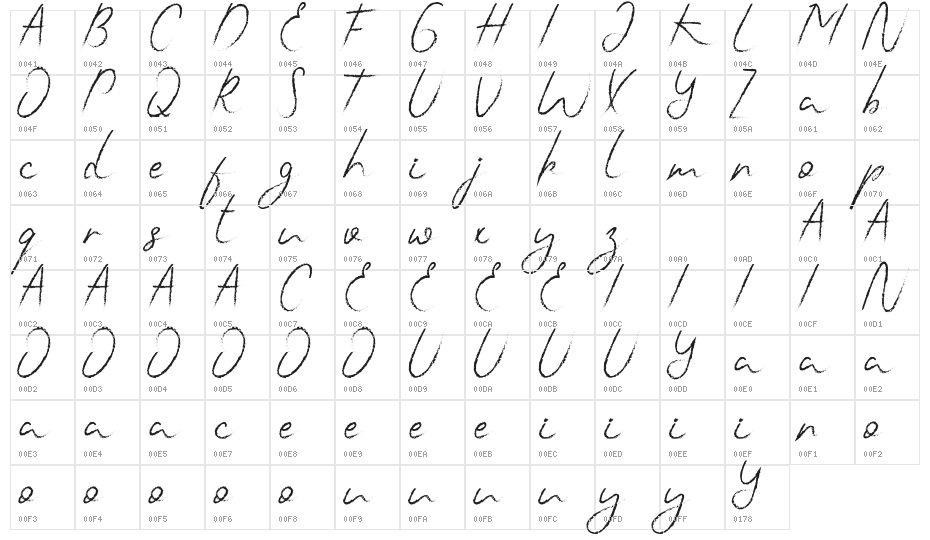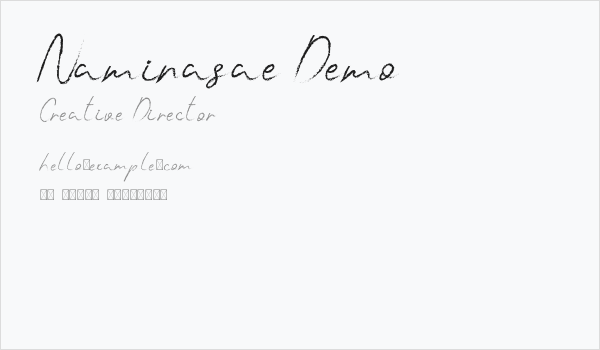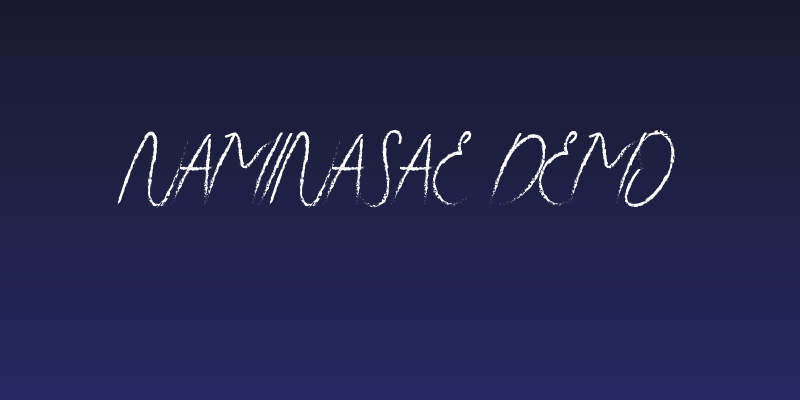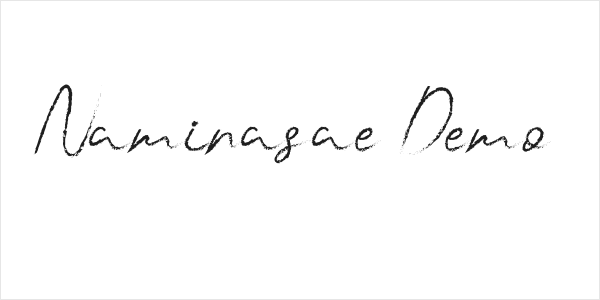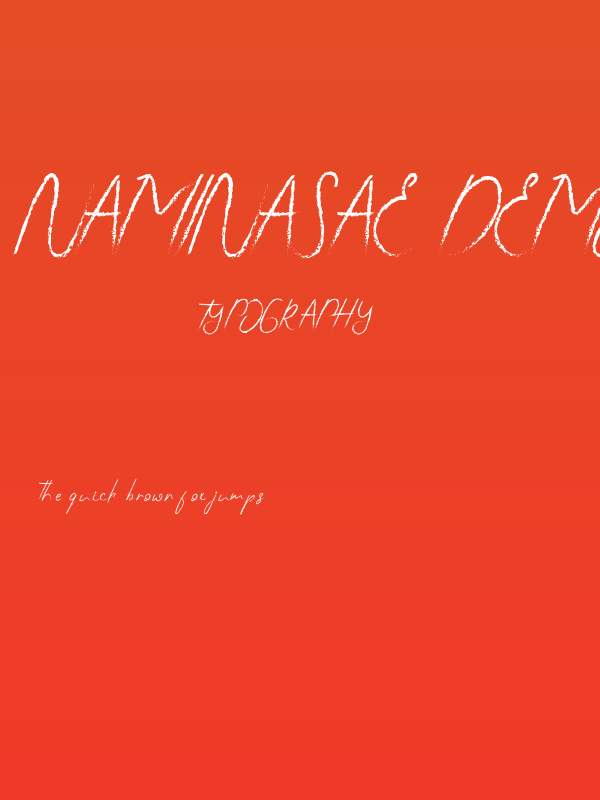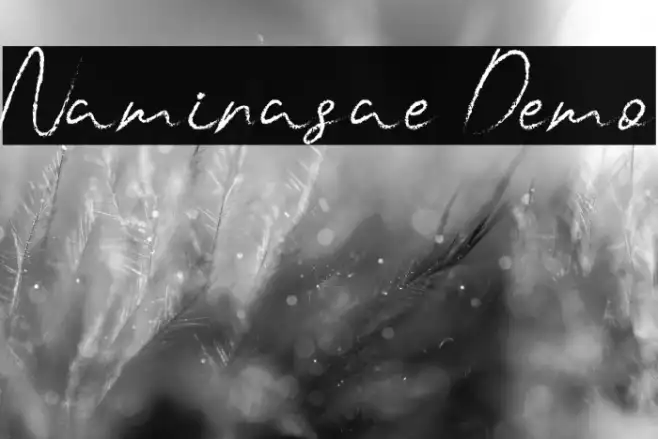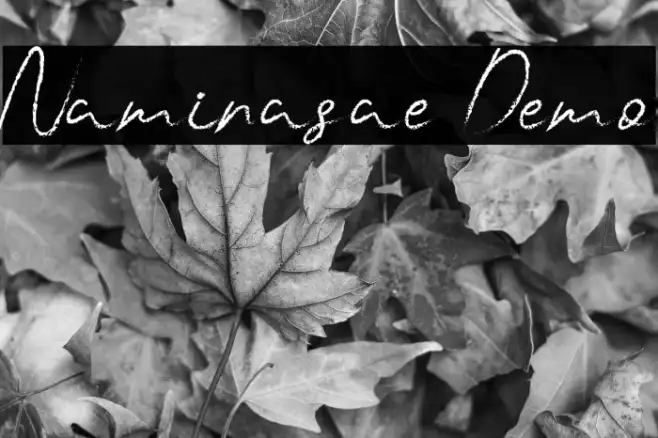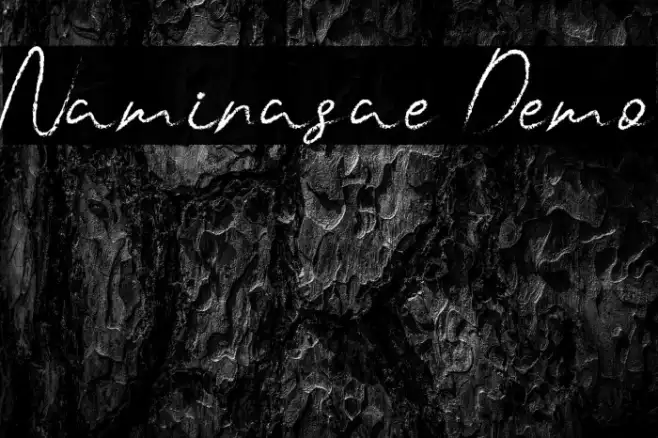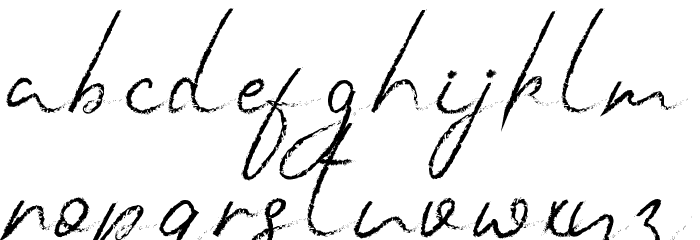
Naminasae Demo Font
Naminasae Demo Description
This font exhibits a dynamic and expressive handwritten style, characterized by its fluid, cursive strokes that mimic the natural flow of handwriting. The letters are slightly slanted, adding to the casual and personal feel of the font. The strokes vary in thickness, providing a medium contrast that enhances the organic look. The uppercase letters are bold and prominent, while the lowercase letters maintain a consistent flow, connecting smoothly in a script-like manner. The overall appearance is both artistic and approachable, making it suitable for projects that require a personal touch.
| Use Case | Logos, Headlines, Artistic projects |
| Proposed Projects | Ideal for personal invitations, greeting cards, artistic projects, and branding that requires a personal, handwritten touch. |